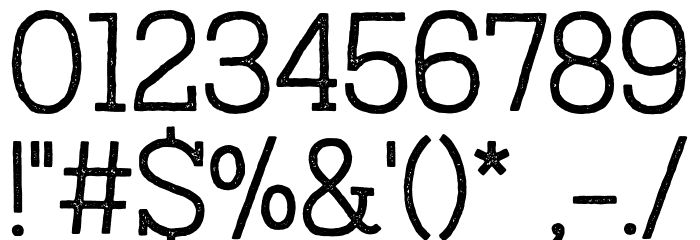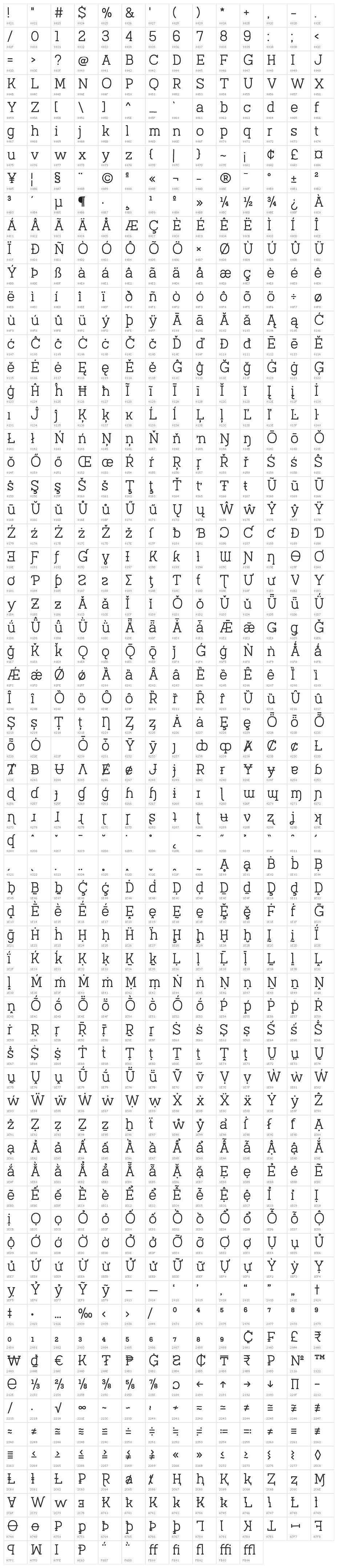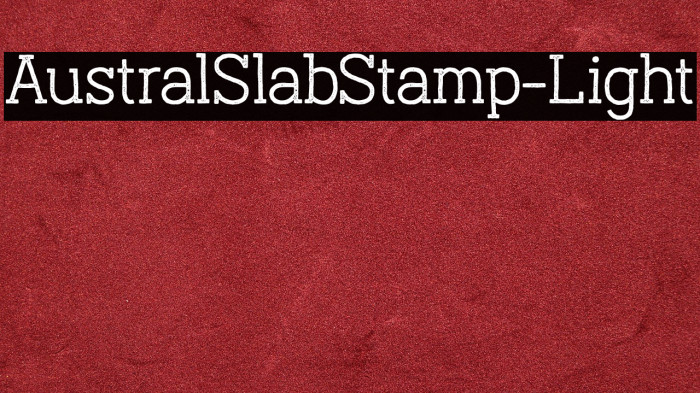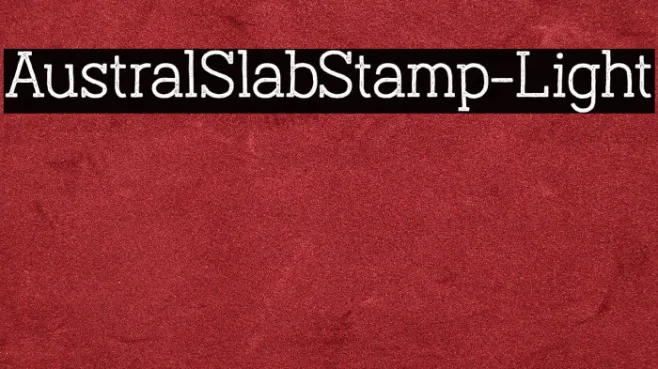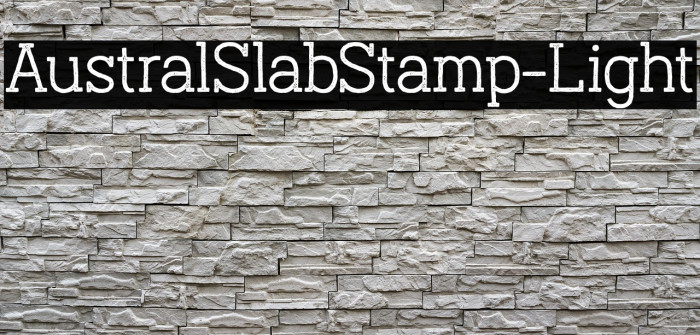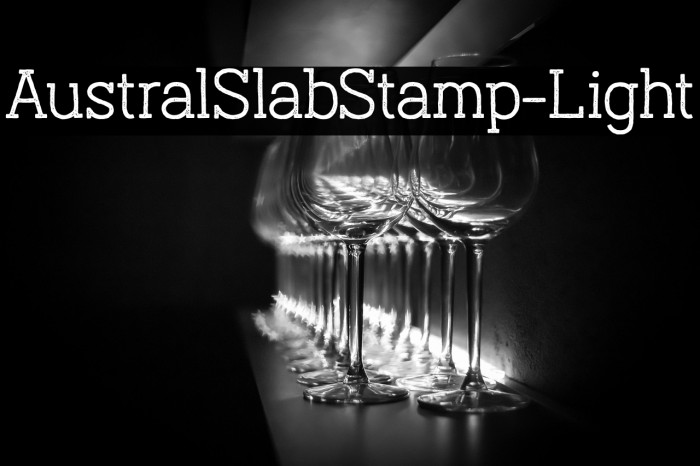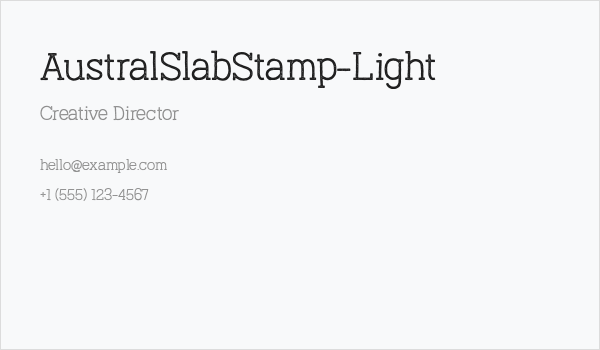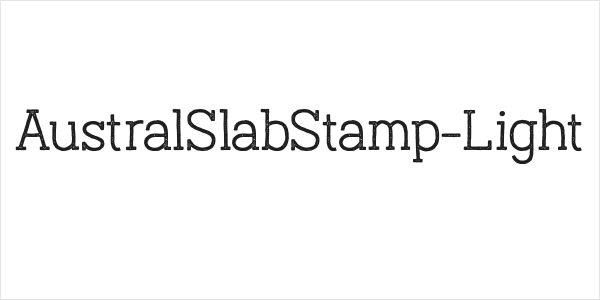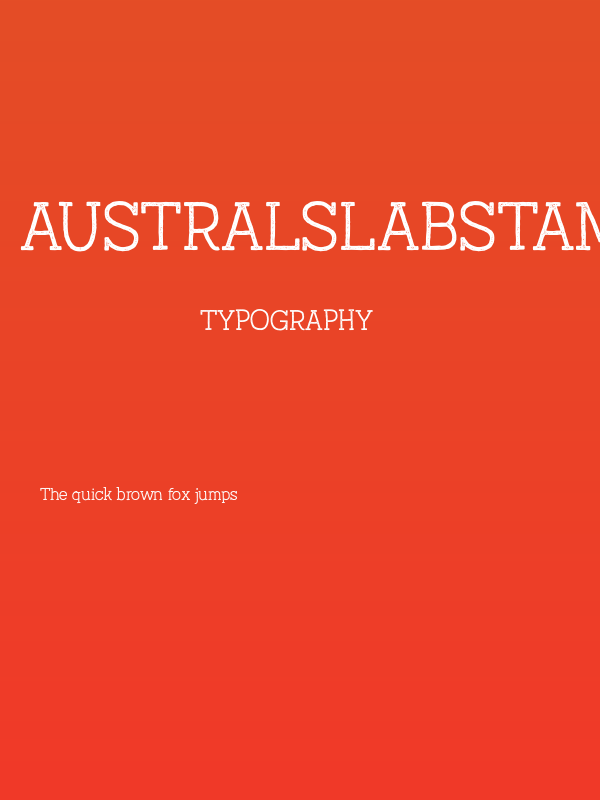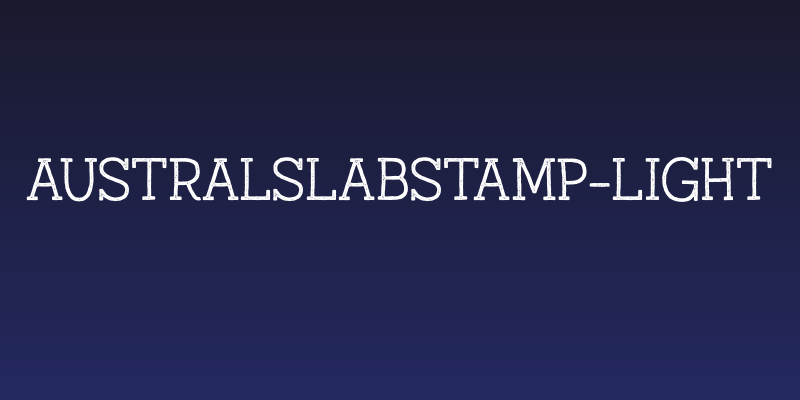
AustralSlabStamp-Light Font
AustralSlabStamp-Light Description
This font features a distinct slab serif style with a textured, stamped appearance that gives it a vintage and rugged feel. The uppercase and lowercase letters are well-proportioned, maintaining a consistent weight throughout. The numerals are clear and legible, matching the overall aesthetic of the alphabet characters. Special characters are included, adding versatility to the font's use. The texture adds a unique character, making it suitable for designs that require a handcrafted or industrial look. The font's structure is solid, with each letterform exhibiting a slight roughness that enhances its visual appeal.
| Proposed Projects | Ideal for branding, packaging, posters, and any project needing a vintage or industrial touch. |